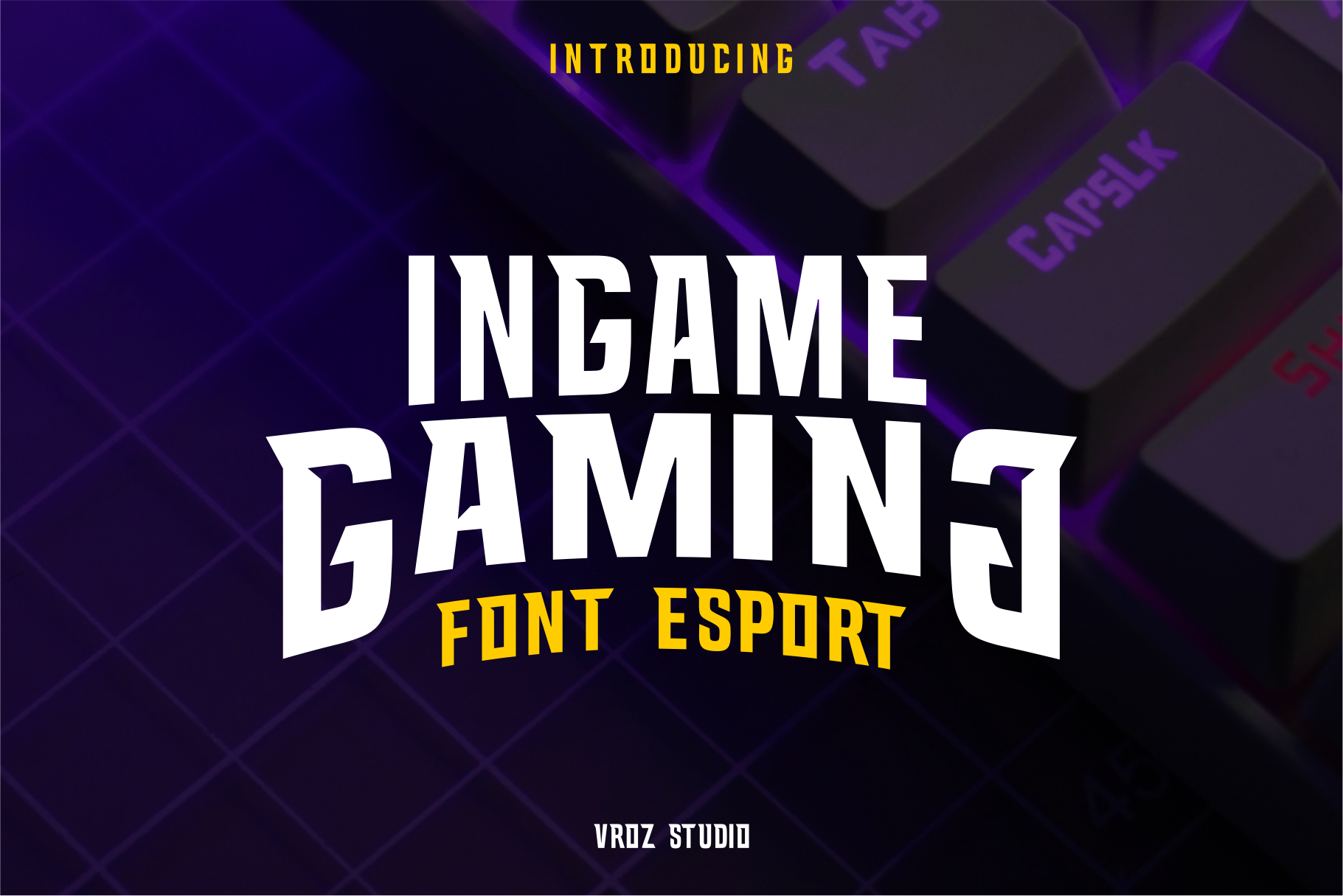
INGAME - A Sporty Font
Introducing INGAME - A Sporty Font
INGAME is a sport font. INGAME FONT brings you the kind of cheerful and sporty vibes which spreads the playful energy for the game. ingame font will be suitable to be associated to any kind of sport product such as name team, poster, jersey design, sport-slogan, and many more about sport or e-sport
- different style Uppercase and Lowercase letters